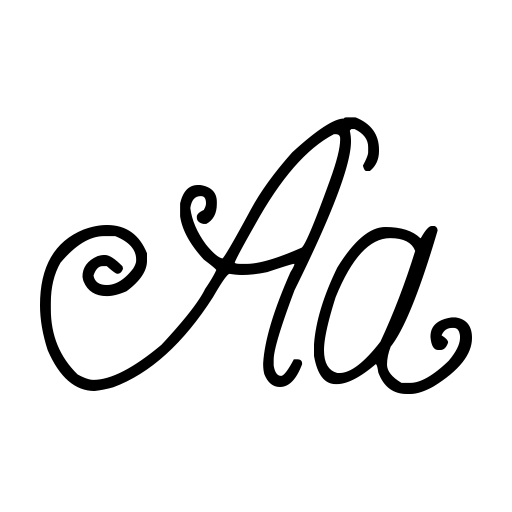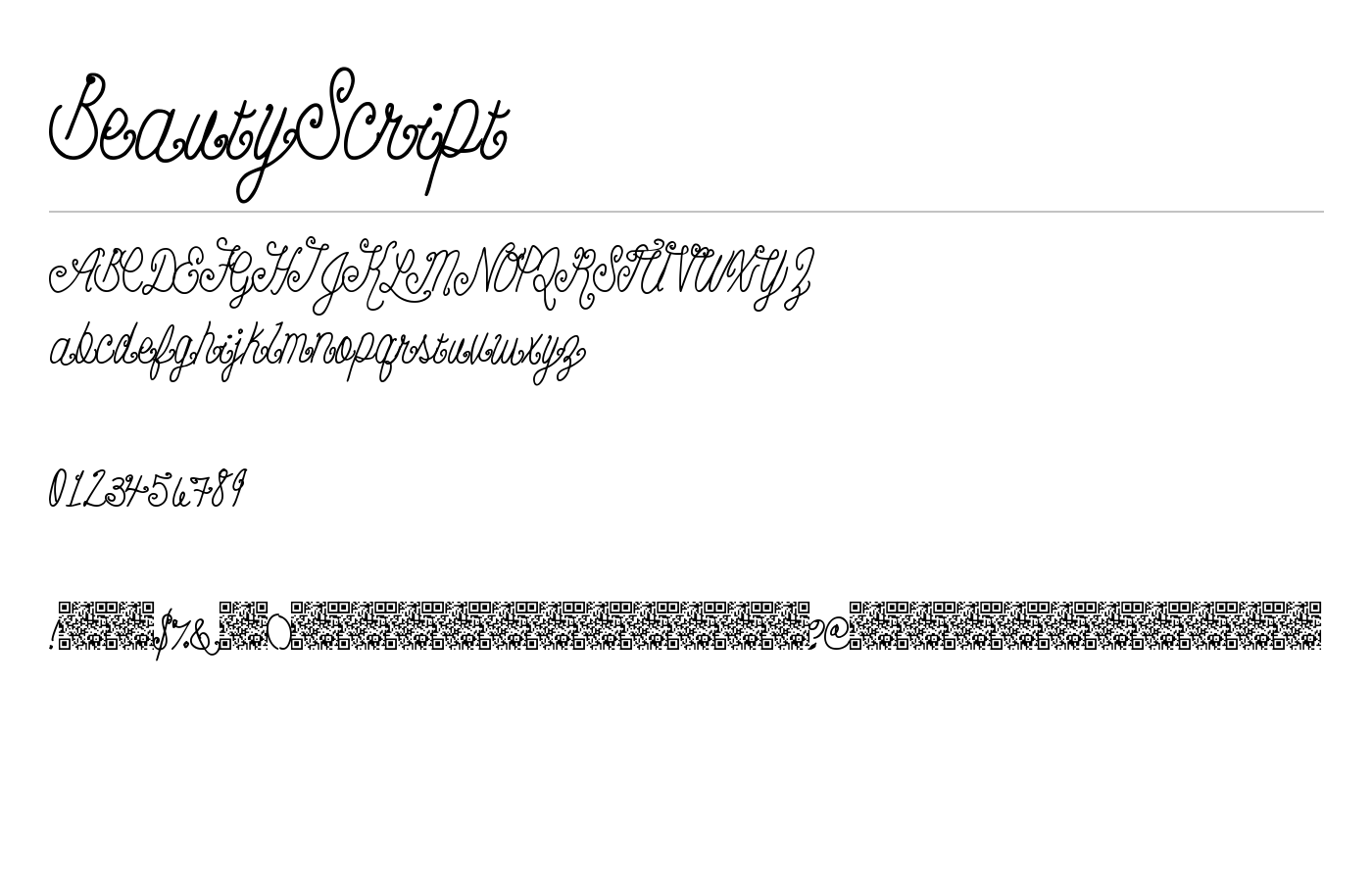
BeautyScript is a delicate and elegant script font characterized by its fine, flowing lines and ornamental flourishes. Its narrow letterforms and high contrast between thin strokes create a graceful and refined appearance, making it perfect for sophisticated branding, wedding invitations, and luxury packaging. This font’s whimsical yet polished style adds a personal, artistic touch to any design, conveying beauty and elegance with a handwritten charm.
BeautyScript Font
About BeautyScript Font